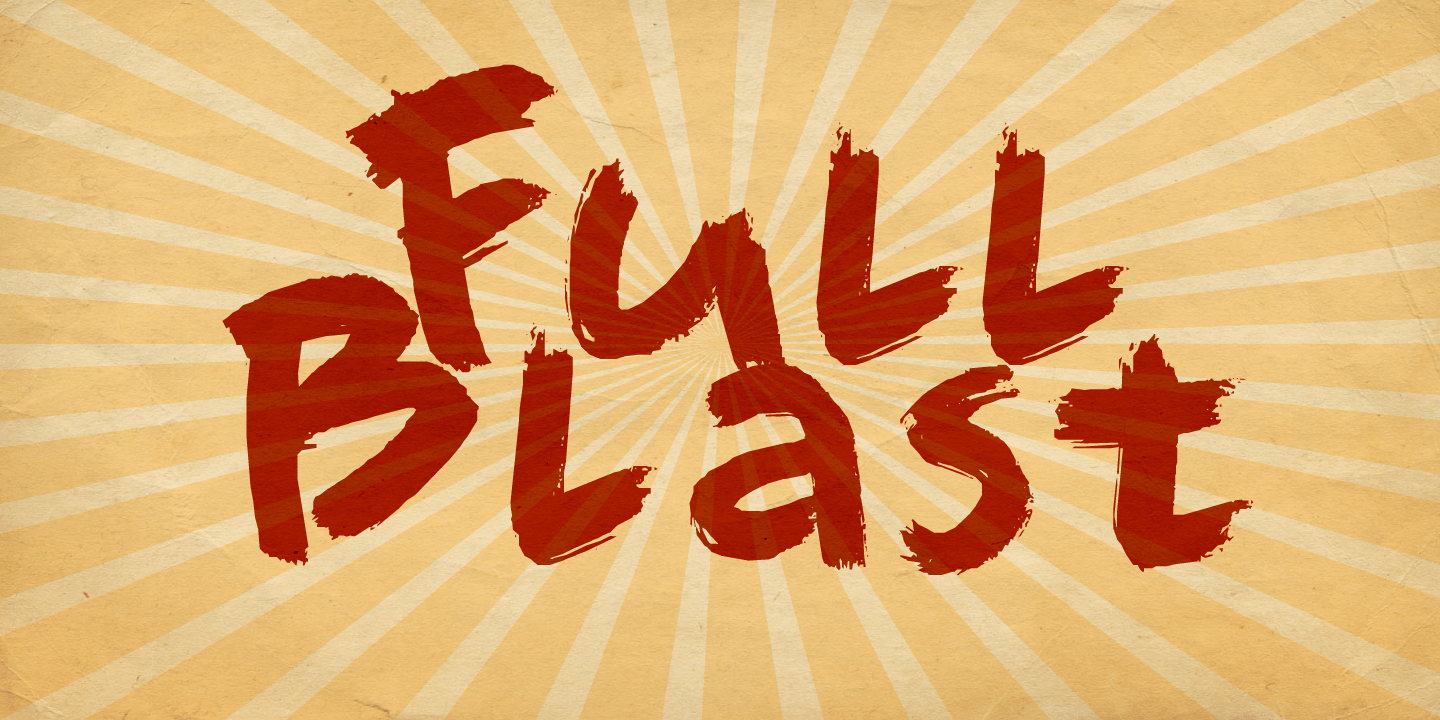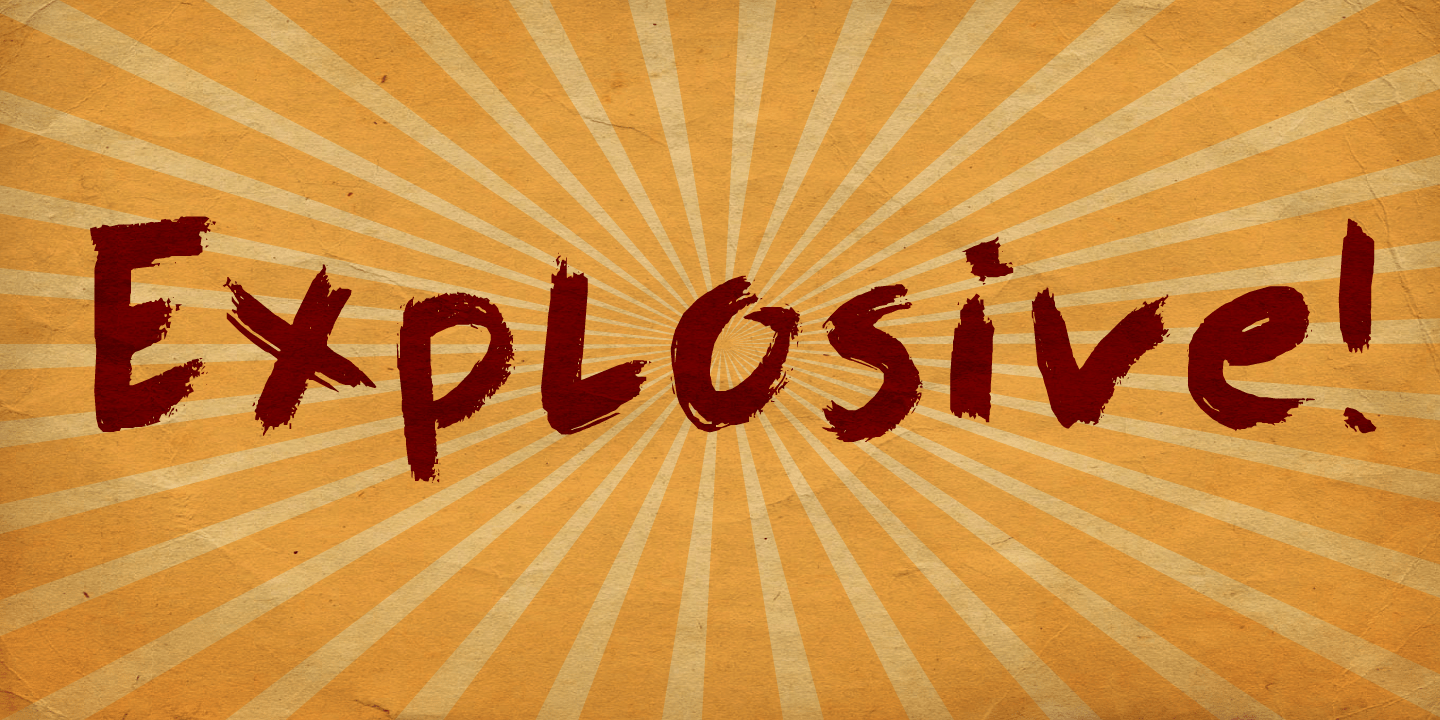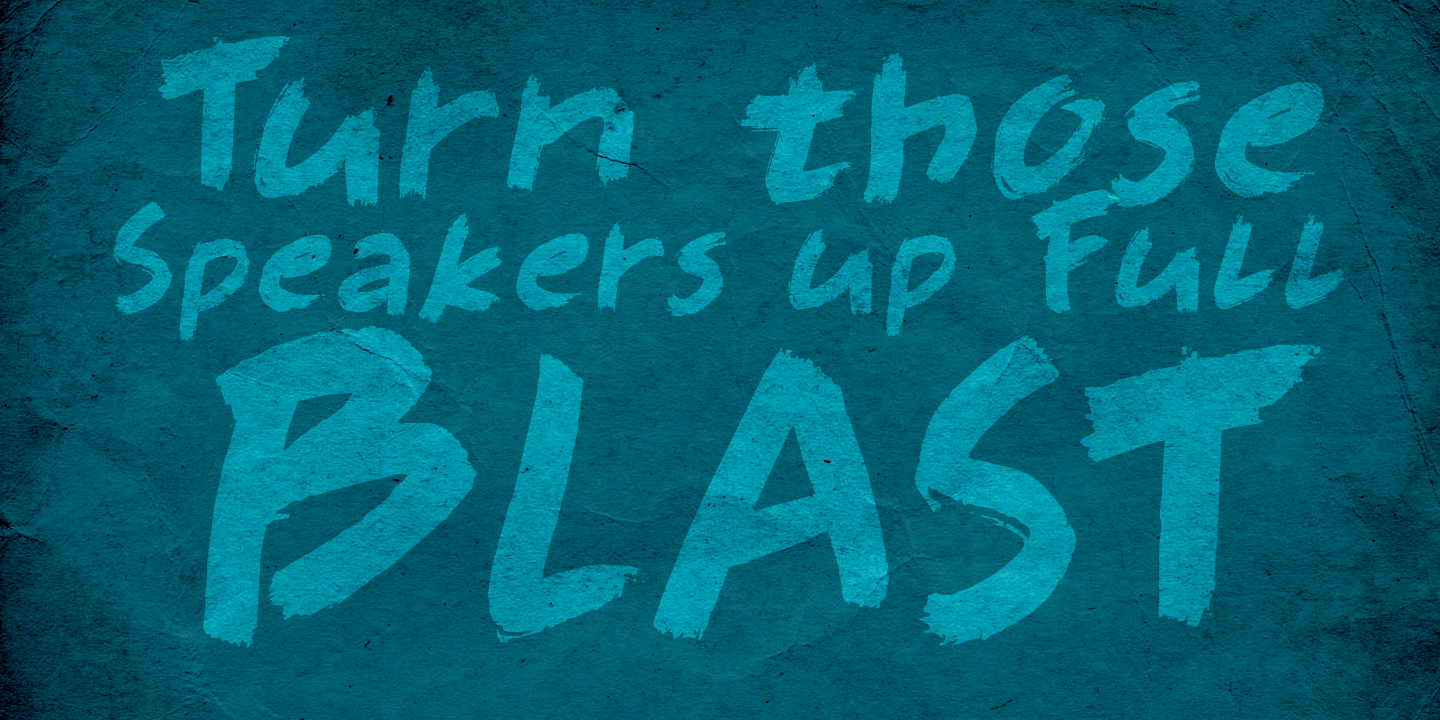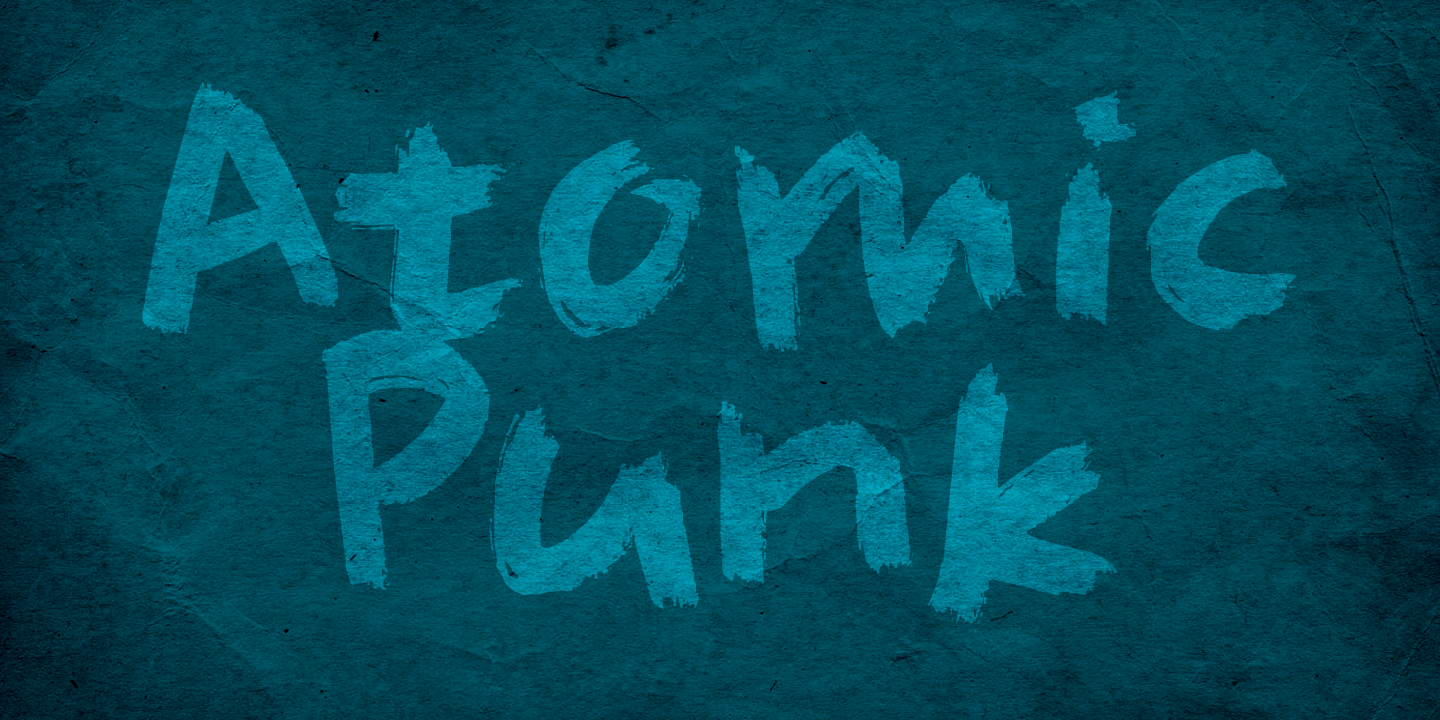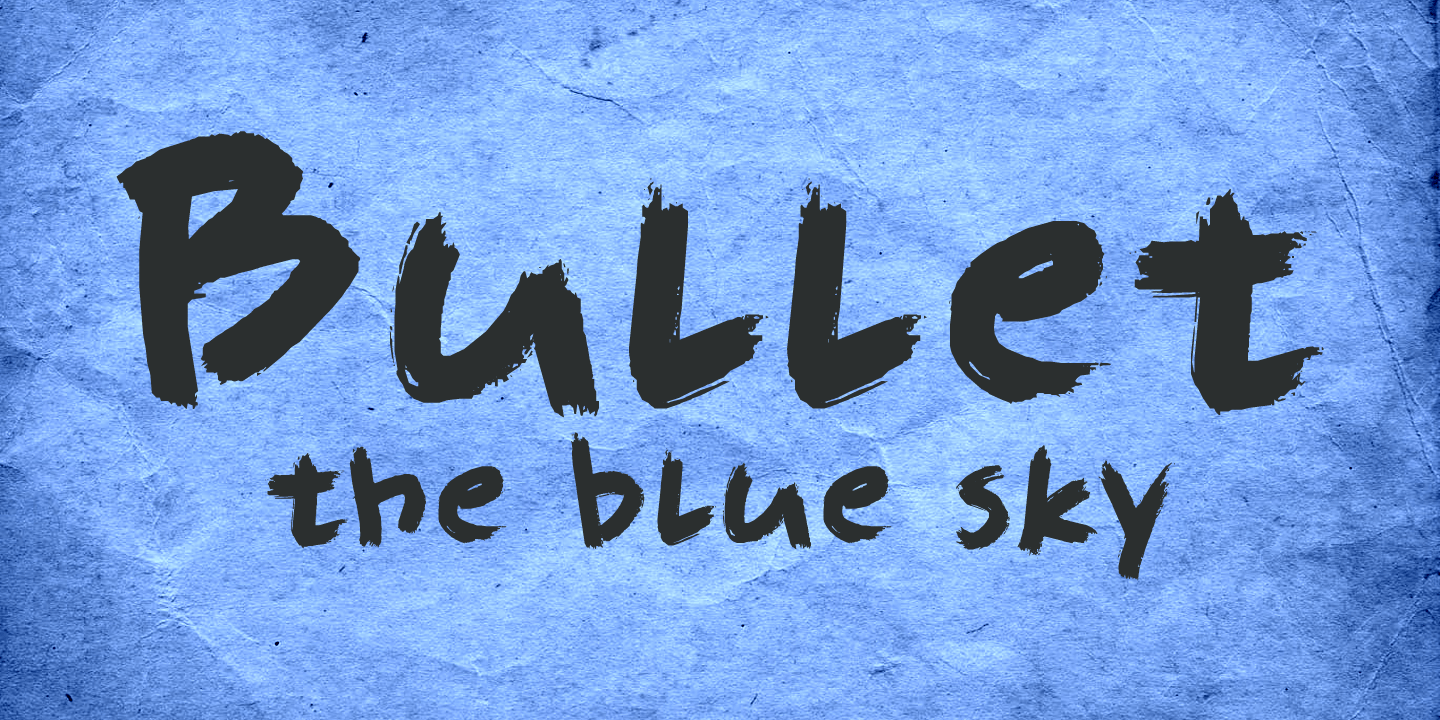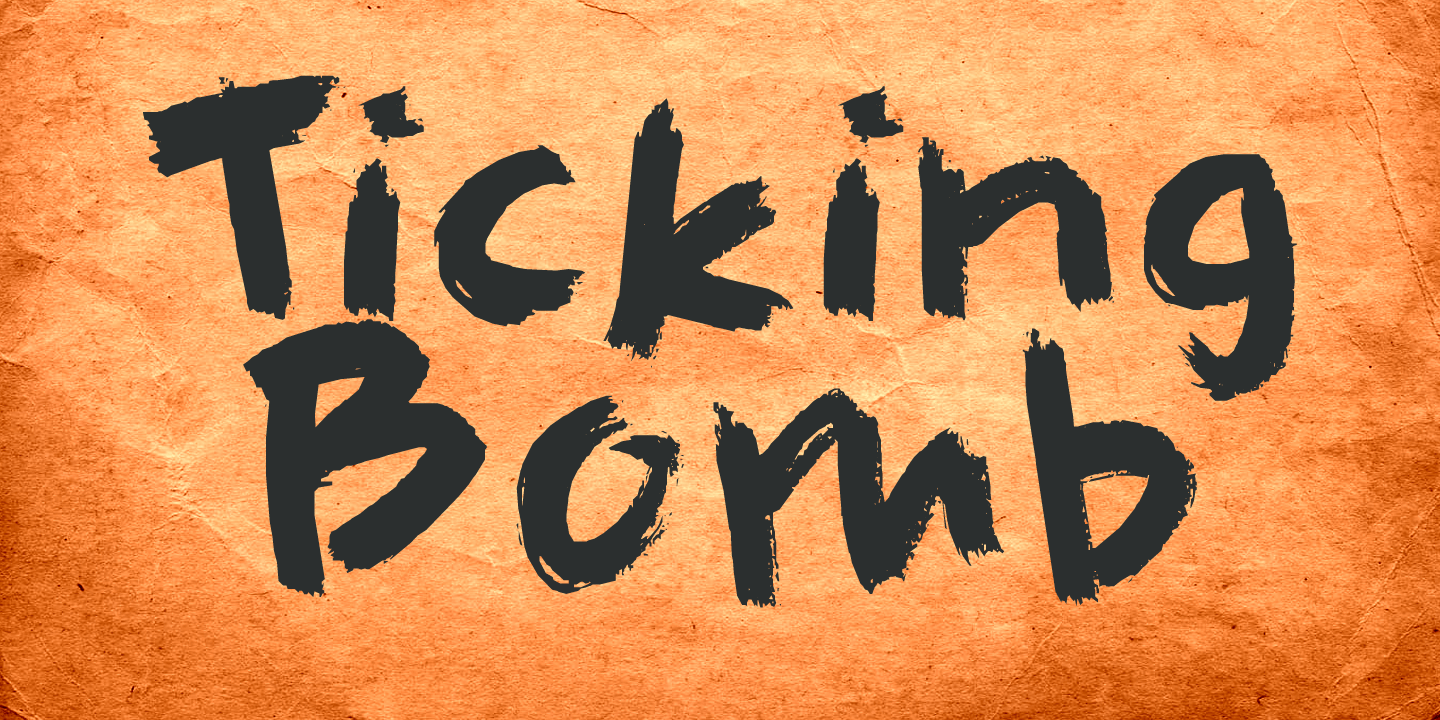
Full Blast
I was cleaning out my pencil box and found an old marker pen. I wanted to throw it away, because it was leaking all over my stuff, but decided I could use it one last time.
The result is Full Blast font: a ?brush? font (made with that leaking old marker pen). Use if for your fireworks packaging, fiery pepper sauce bottles and whoopee cushions (and just about anything else as well). Comes with an explosive amount of diacritics.